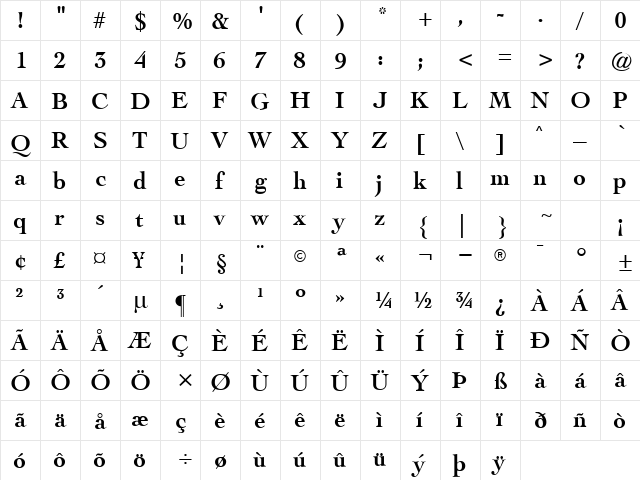
Collage Bold
Design Context for Collage Typeface
Collage offers clean, dependable letterforms without strong stylistic allegiance, making it a practical choice for designers who need flexibility. The heavy weight commands attention and anchors typographic hierarchies.
Pro Tip: Pair Collage with a font of contrasting weight or personality to build a more expressive typographic hierarchy.